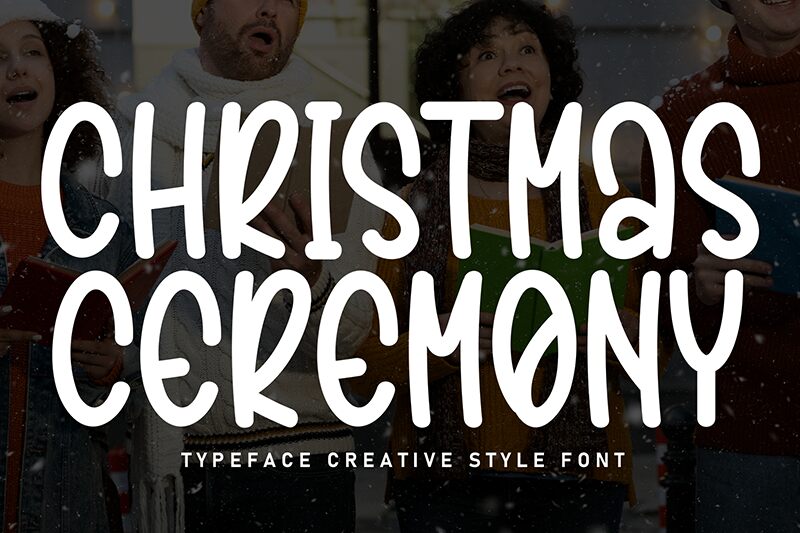
Christmas Ceremony
Christmas Ceremony font by Andi Moz is a free handwritten typeface that brings cozy holiday energy to anything it touches. Its tall, narrow letters feel like they’ve been drawn with a smooth marker—rounded, slightly wobbly, and full of friendly charm. The spacing is snug without feeling cramped, so words stack into pleasing, candy-cane–like lines that read clearly even at smaller sizes.
Using Christmas Ceremony, you can quickly give greeting cards, party invitations, gift tags, social media graphics, kids’ crafts, and seasonal packaging a warm, homemade feel. The uniform stroke keeps text easy on the eyes, while the playful curves add just enough whimsy for festive themes. This free font pairs nicely with a simple sans serif for body text—set Christmas Ceremony large for headings, then anchor it with clean, understated captions underneath.